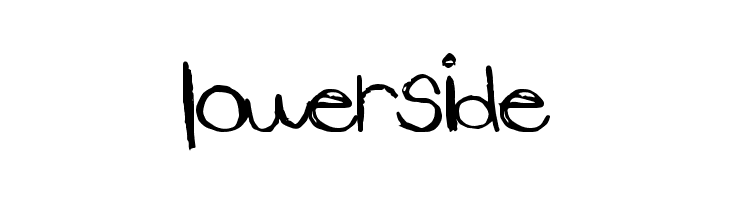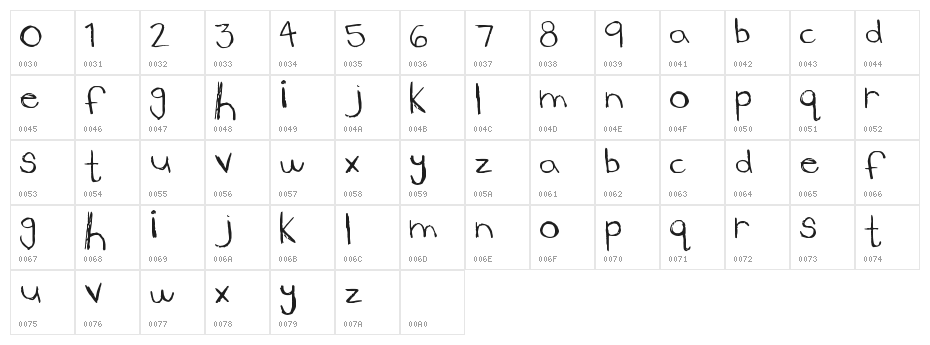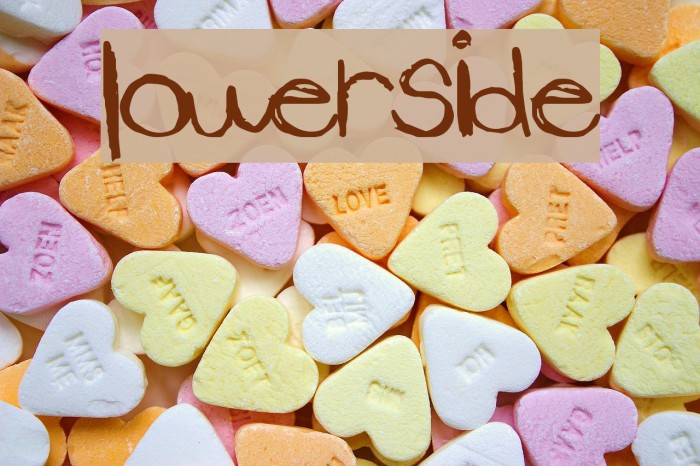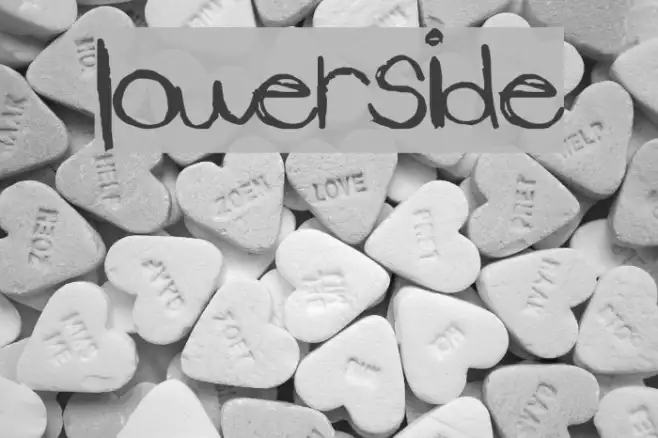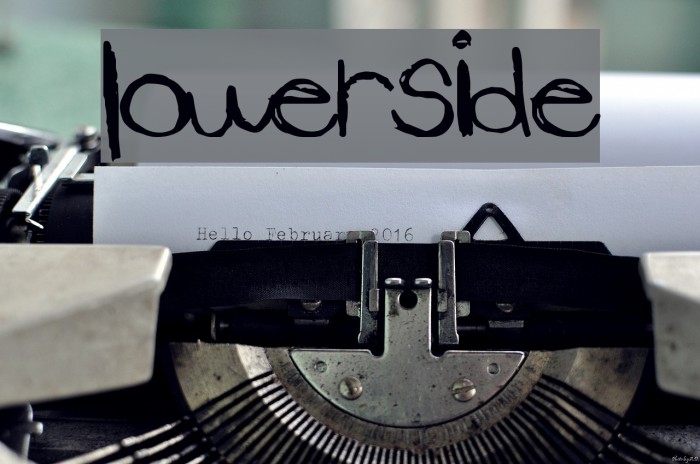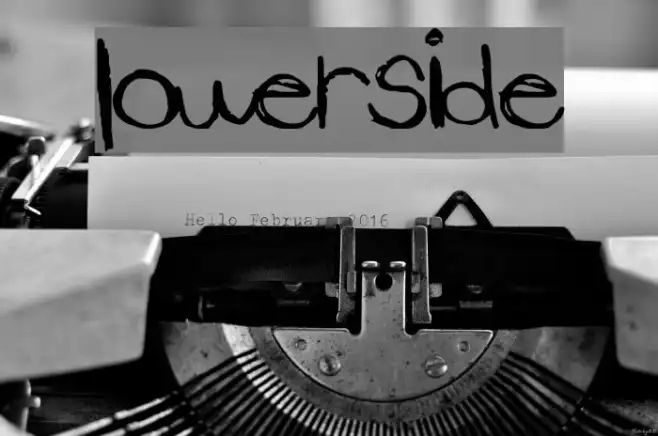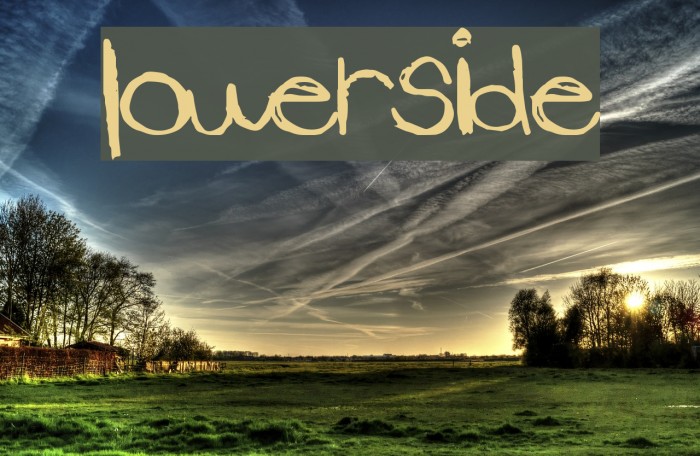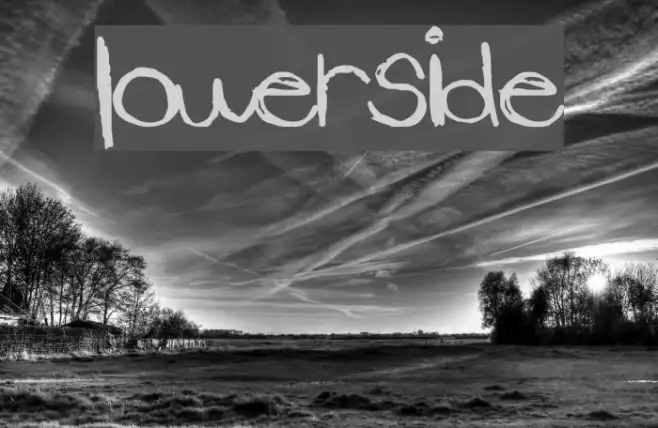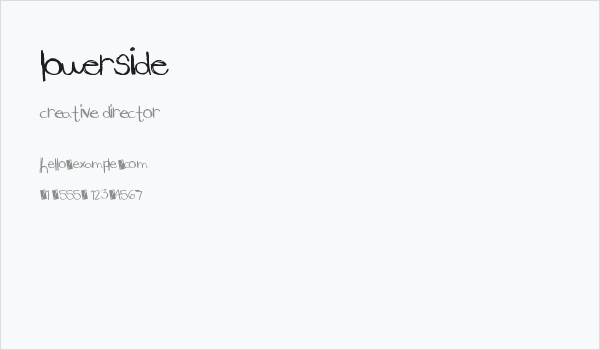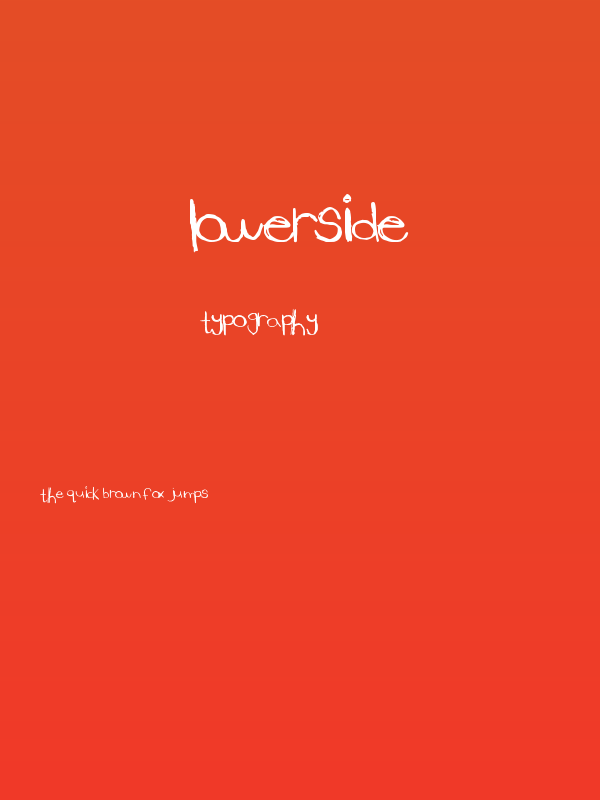
LowerSide Font
LowerSide Description
This font features a rough, hand-drawn style that exudes a sense of raw energy and creativity. The characters are irregular and slightly distorted, giving them a unique, artistic flair. The strokes are uneven, with varying thicknesses that add to the font's dynamic appearance. This style is reminiscent of graffiti or street art, making it perfect for projects that require a bold and edgy look. The uppercase and lowercase letters maintain a consistent style, while the numbers and special characters follow the same artistic theme. The overall impression is one of spontaneity and individuality, making it suitable for creative and unconventional designs.
| Use Case | Logos, Posters, Creative projects |
| Proposed Projects | Ideal for street art designs, edgy posters, album covers, and creative branding projects. |